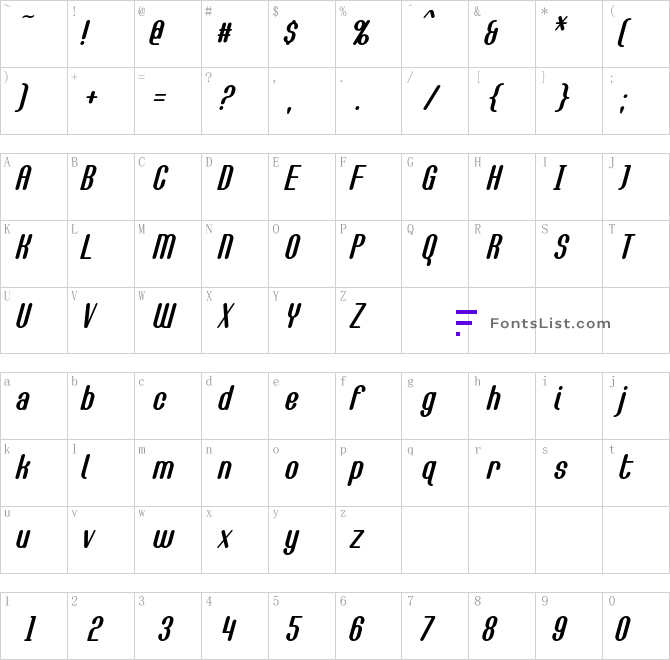
- Font Name:Callie-Mae
Callie-Mae-Italic.ttf is a very beautiful artistic font, Callie-Mae-Italic.ttf is widely used in the design and printing of various books and pictures,Callie-Mae-Italic.ttf has a strong visual impact,Callie-Mae-Italic.ttf is a commonly used font in newspapers, magazines and books, and is used in posters, e-commerce Poster design, store design, logo design, font design and other fields.Callie-Mae-Italic.